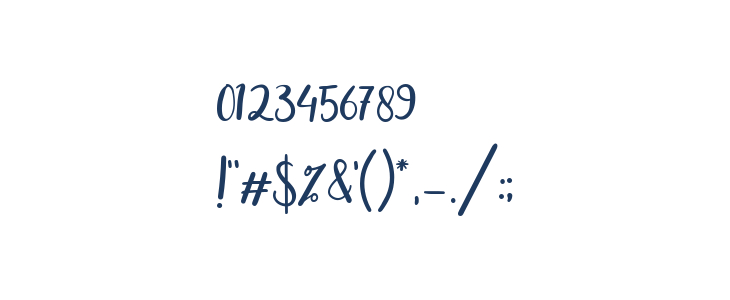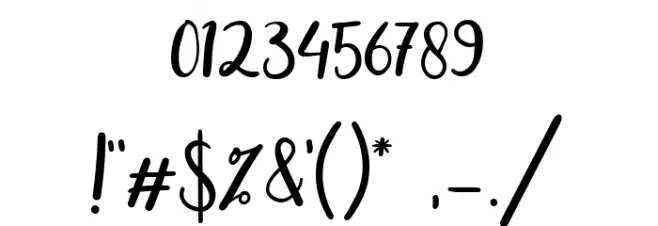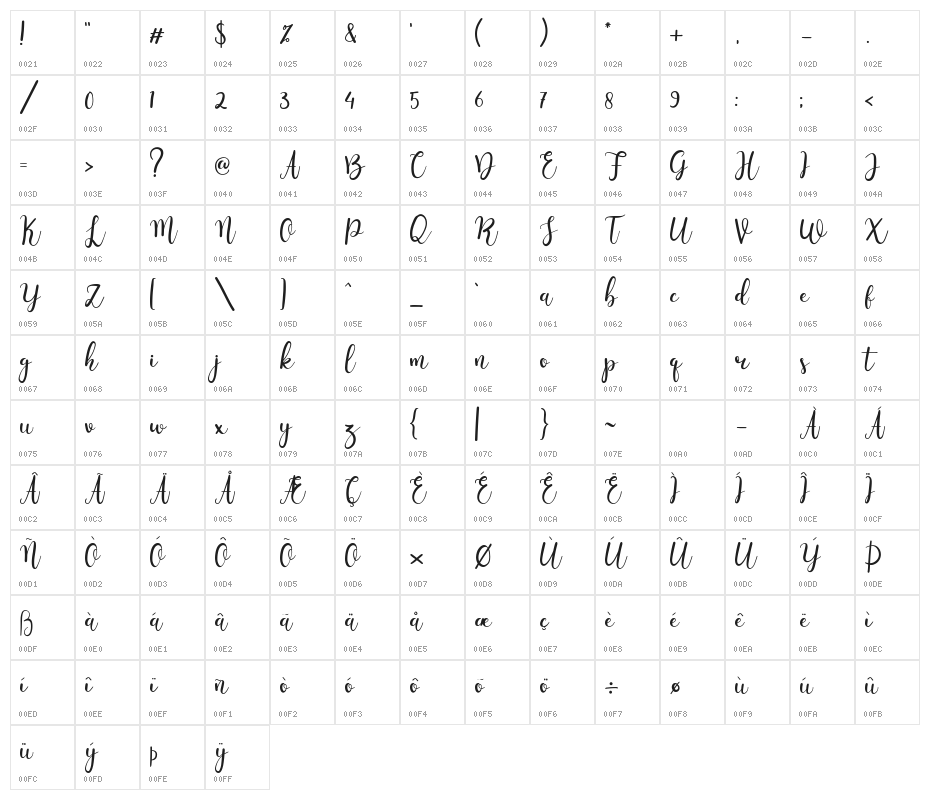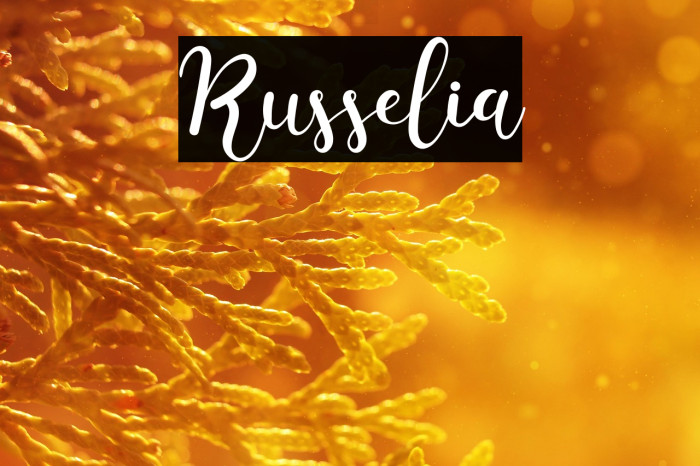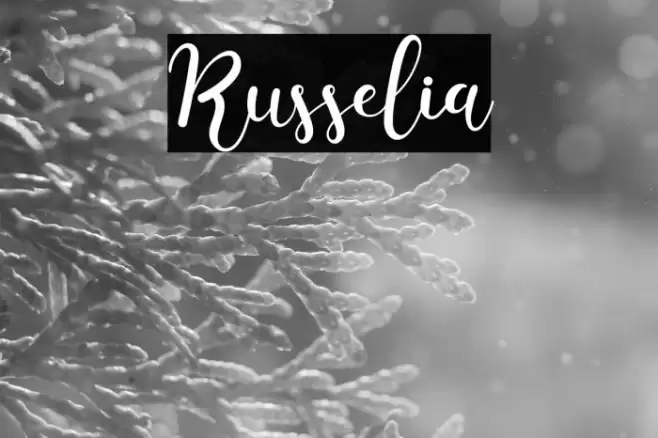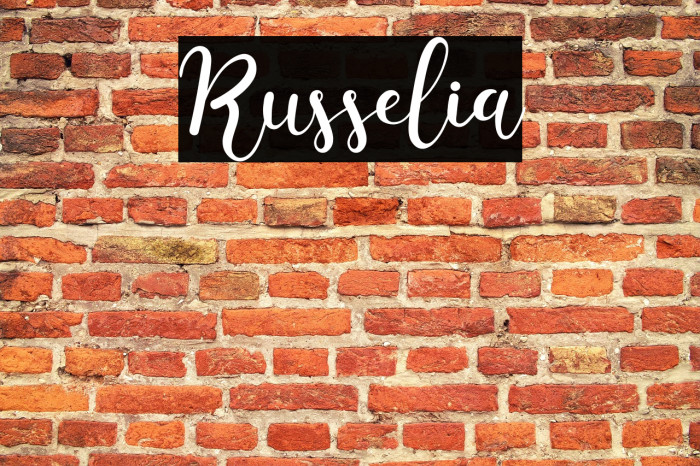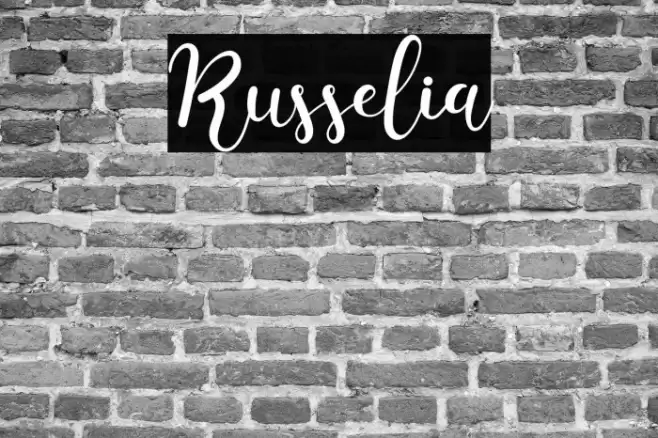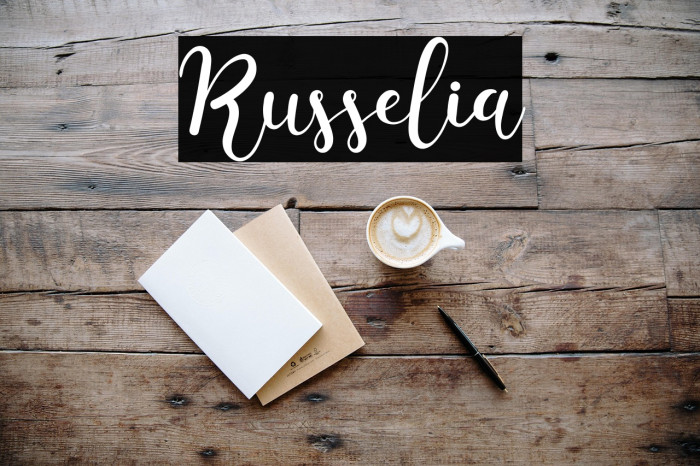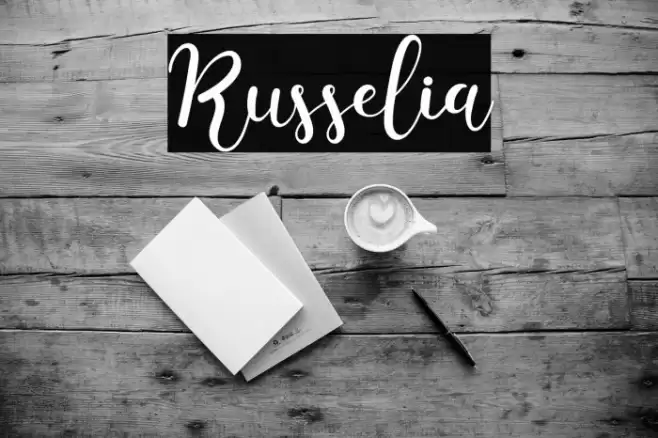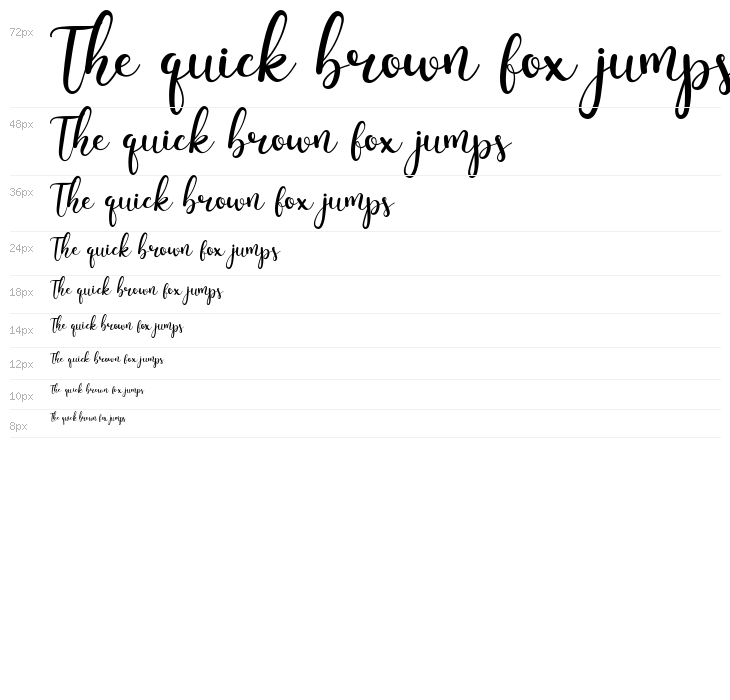
Russelia Font
Russelia Description
This font exudes a charming and elegant script style, characterized by its flowing, cursive letterforms. The uppercase letters are gracefully elongated with smooth, sweeping curves, while the lowercase letters maintain a consistent, fluid motion that enhances readability. The numerals and special characters complement the overall aesthetic with their balanced and harmonious design. This font is perfect for adding a touch of sophistication and personality to any project, making it ideal for invitations, branding, and decorative purposes.
Overall StyleElegant, Decorative
Use CaseLogos, Invitations, Decorative text
Proposed ProjectsIdeal for wedding invitations, branding, greeting cards, and decorative signage.